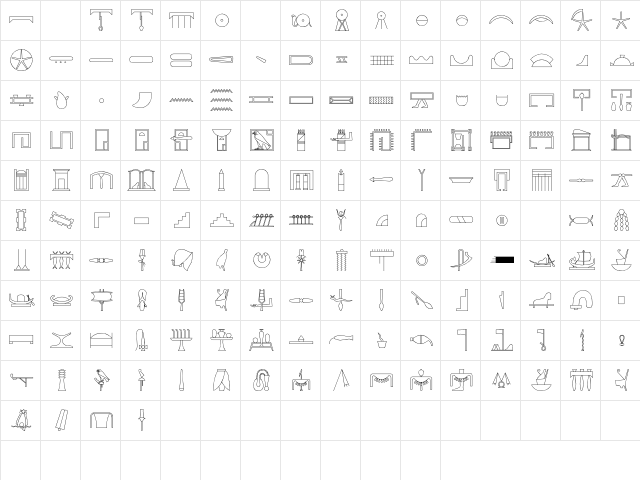
GlyphBasic3 Regular
Design Context for GlyphBasic3 Typeface
GlyphBasic3 is a composed and adaptable typeface that performs quietly and consistently across a wide range of design contexts.